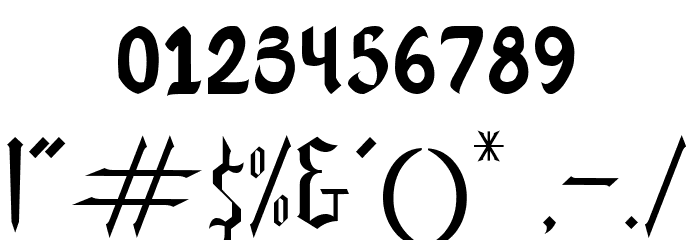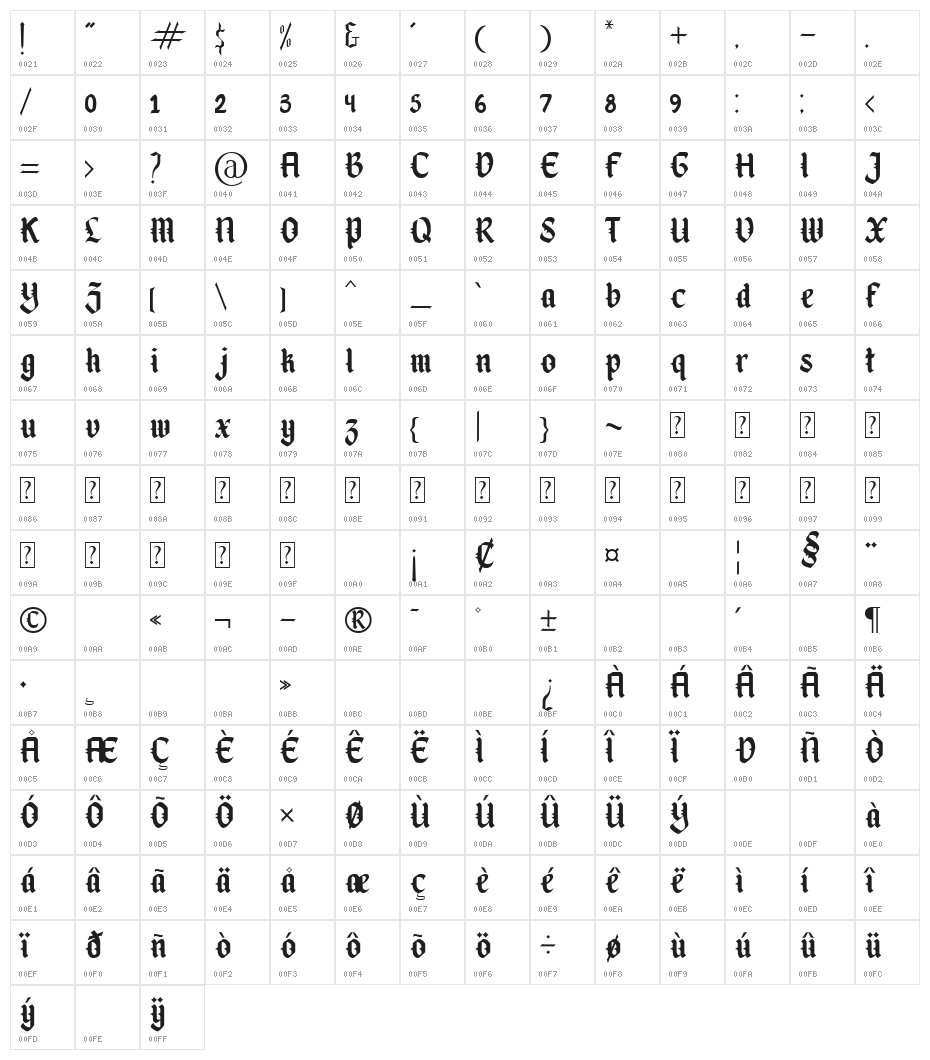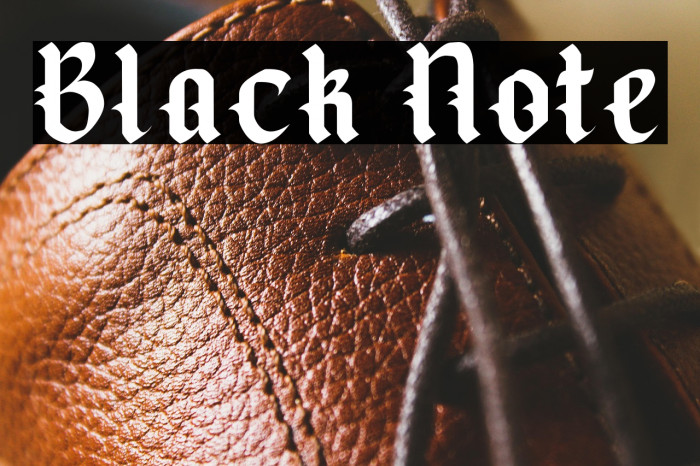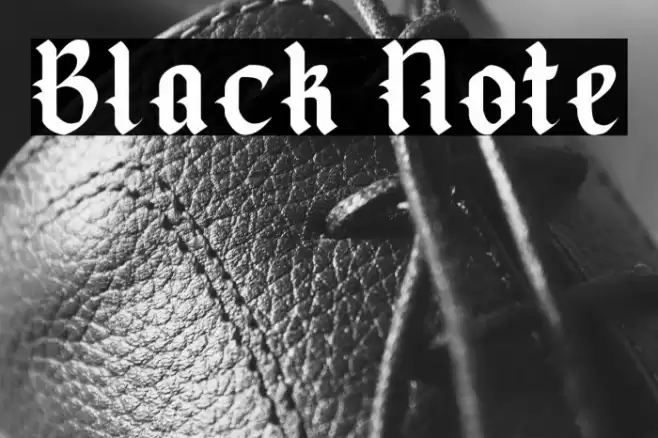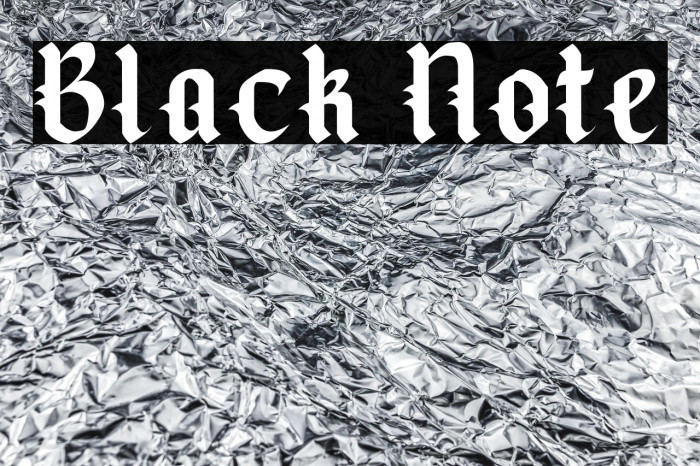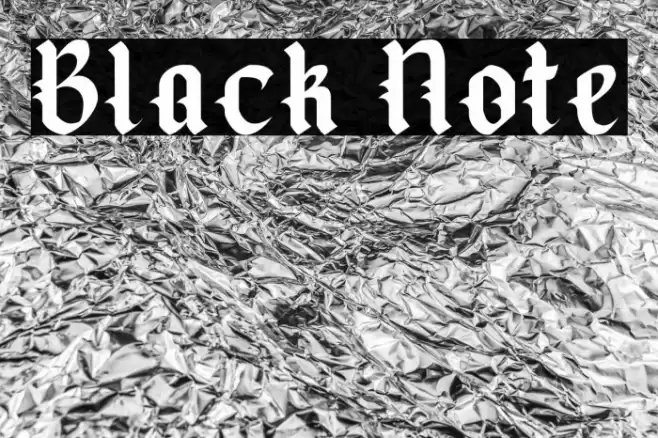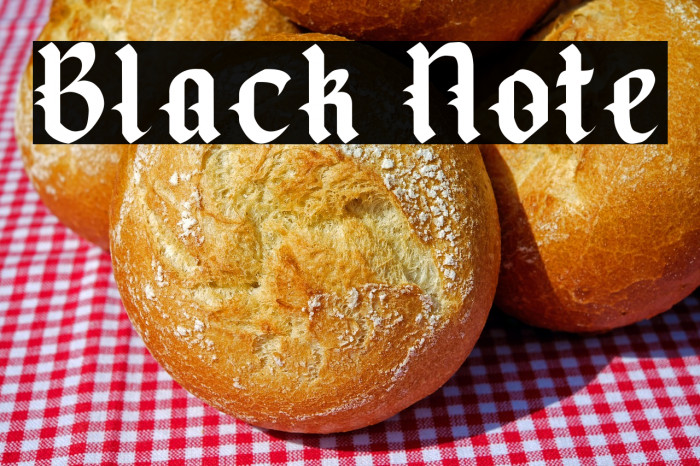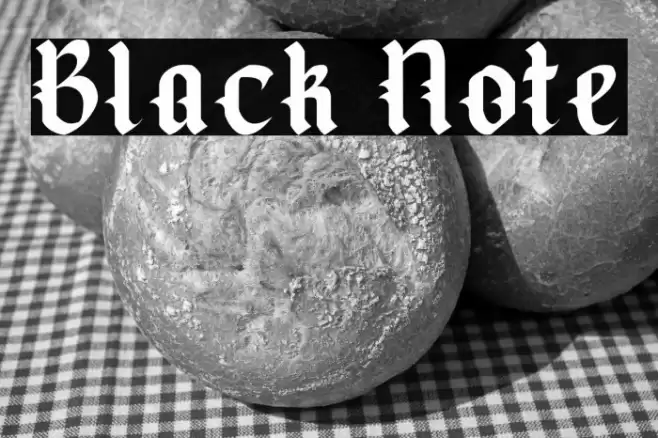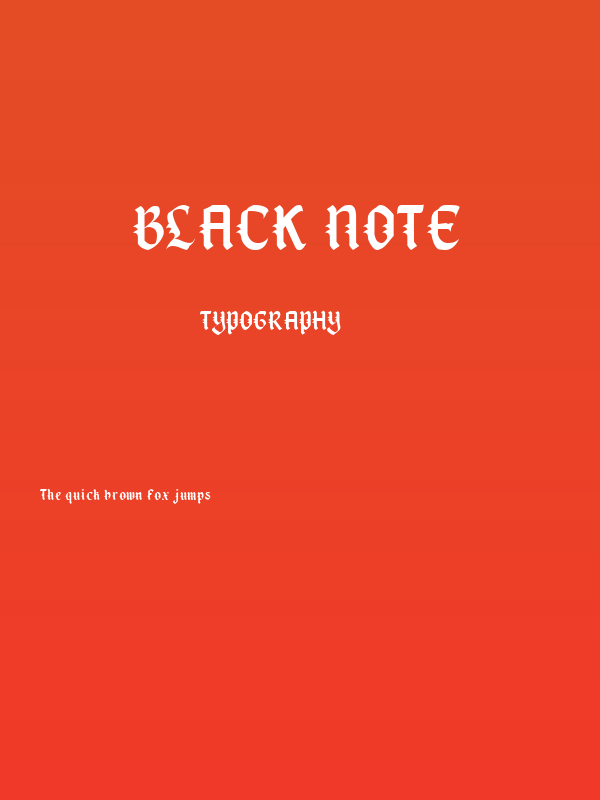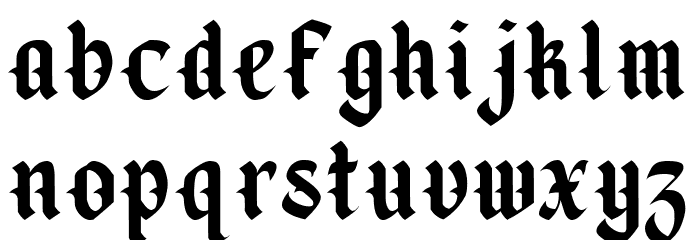
Black Note Font
Black Note Description
This font features a traditional blackletter style, characterized by its ornate and intricate design. The letters are bold and angular, with sharp edges and a distinct medieval aesthetic. The uppercase and lowercase letters maintain a consistent style, with elaborate serifs and a strong vertical emphasis. The numbers and special characters are equally decorative, fitting seamlessly into the overall design. This font evokes a sense of history and tradition, making it ideal for projects that require a touch of elegance and formality.
| Use Case | Logos, Headlines, Decorative purposes |
| Proposed Projects | Ideal for historical documents, certificates, invitations, and branding that requires a classic and formal touch. |